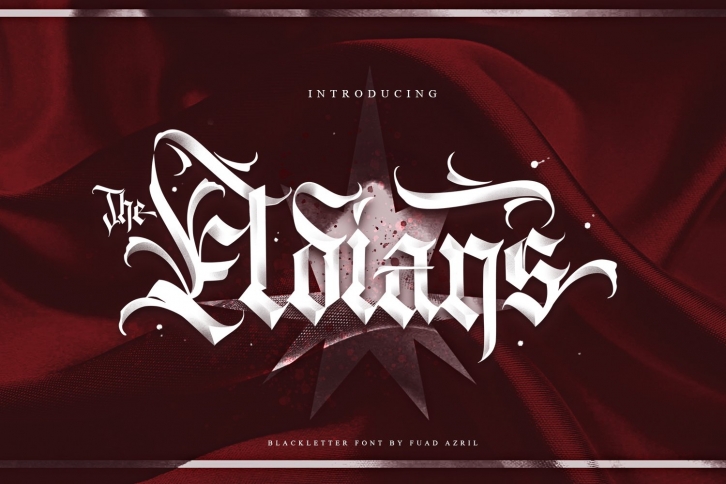
The Eldians is a great font that was designed by Nugs Project. Imagine the amount of combinations you can create using this font! The archive is 21.23 MB and it was released on December 29, 2020. The Eldians looks beautiful on wedding invitations, greeting cards, logos, posters, labels, t-shirt designs, logos, business cards and is perfect for use in ink or watercolor works, fashion, magazines, packaging and food menus, children's books and more!